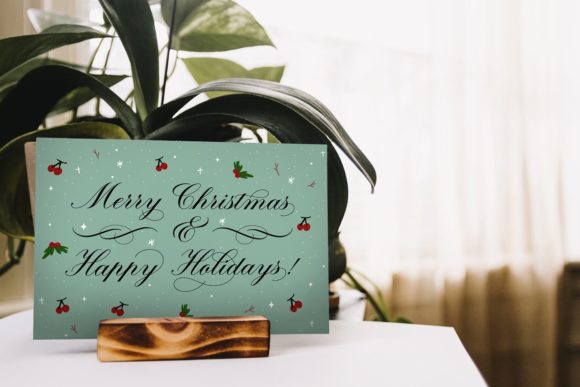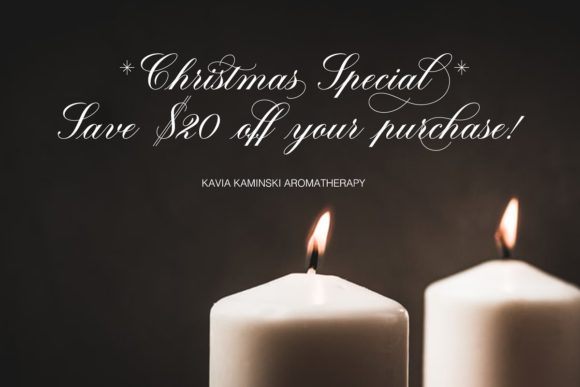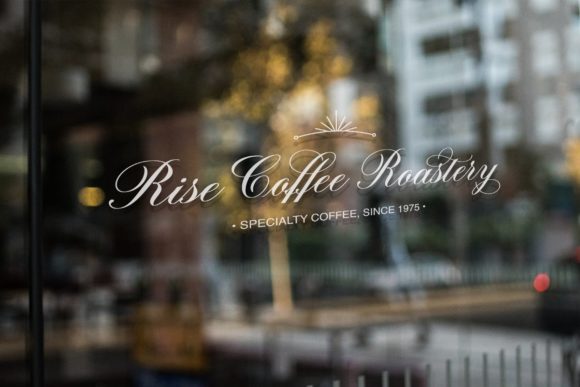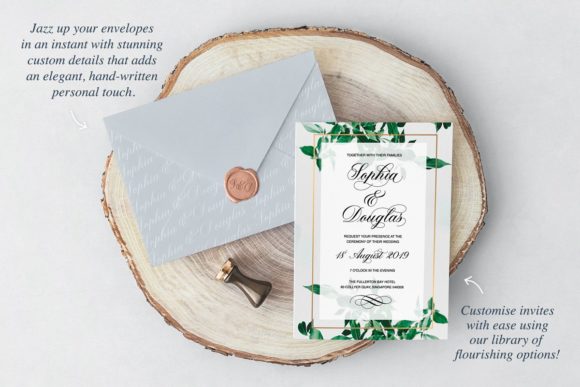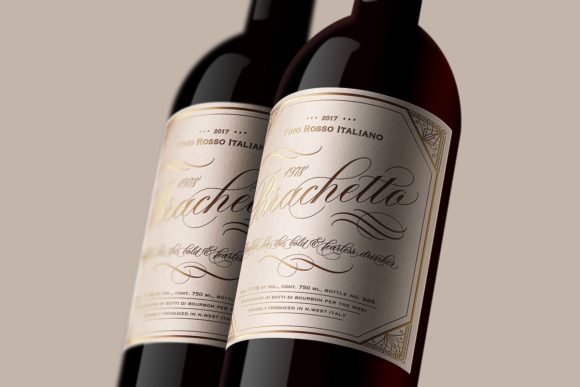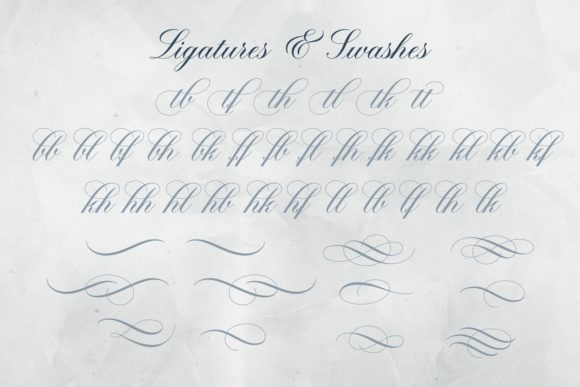
Unleash Your Inner Artist: Discover the Magic of Brachetto Font
Have you ever sat down with a blank canvas or a fresh sheet of paper, only to find yourself lost in the endless possibilities of creativity? The blank space can be both exhilarating and intimidating, but what if you had the perfect tool to spark your imagination and guide your artistic vision?
Meet Brachetto Font, a stunning script that reimagines classic calligraphy with a sensual, modern twist. Designed to ignite your creativity, this gorgeous and magical script is perfect for designers looking to add a touch of elegance and sophistication to their projects. With Brachetto Font, you’ll have the power to bring your ideas to life in a way that’s both beautiful and meaningful.
Whether you’re a seasoned pro or a budding artist, Brachetto Font is a valuable asset that will elevate your designs and inspire your creativity. So why settle for ordinary when you can have extraordinary? Let Brachetto Font be your guide to unlocking your full potential and creating something truly special.
Brachetto Font Key Features
- Font Family: Brachetto Font is a unique, elegant script font designed for luxury and high-end branding.
- Character Set: The font includes a wide range of characters, including uppercase and lowercase letters, numerals, punctuation, and special characters.
- Unique Characteristics: Brachetto Font features intricate details, flowing connections, and a touch of elegance, making it perfect for creating luxury and high-end branding.
Brachetto Font Review
Overall, I found Brachetto Font to be an interesting and visually appealing typeface. There are several aspects where it shines ✨:
- The Brachetto Font has a unique and playful personality, perfect for projects that require a lighthearted and whimsical feel.
- The font has a good balance of curves and lines, making it easy to read and understand at various font sizes.
- Brachetto Font is highly customizable, allowing designers to easily adjust the font’s weight, style, and color to suit their specific project needs.
However, there are some limitations that designers should be aware of ⚠️:
- The font’s uniqueness can also make it difficult to pair with other typefaces, requiring more effort from designers to find matching fonts.
- The Brachetto Font may not be the best choice for formal or professional projects, as its playful nature can come across as unprofessional.
- The font’s customization options can also lead to over-usage, making the design look cluttered or overwhelming.
In conclusion, Brachetto Font is a great choice for projects that require a fun and creative vibe. While it has its limitations, the font’s unique personality and high customizability make it a valuable addition to any designer’s toolkit.
Tips for Getting the Most Out of Brachetto Font
Brachetto Font is a elegant and sophisticated font that works well for formal and informal designs. To get the most out of it, try using it for titles, headings, and body text in designs that require a touch of luxury.
Brachetto Font is commonly used for:
– Luxury branding and packaging
– High-end fashion and beauty designs
– Formal event invitations and announcements